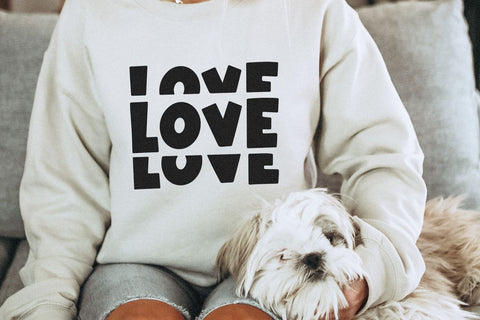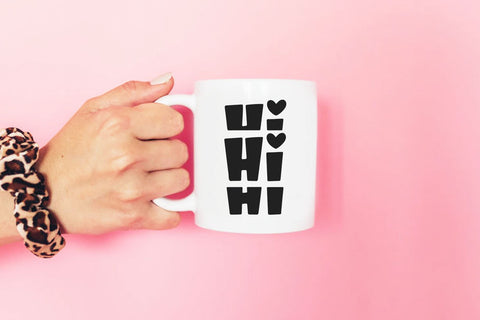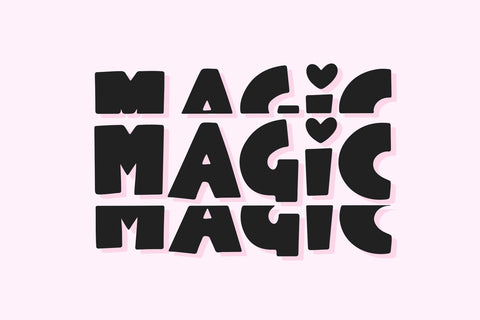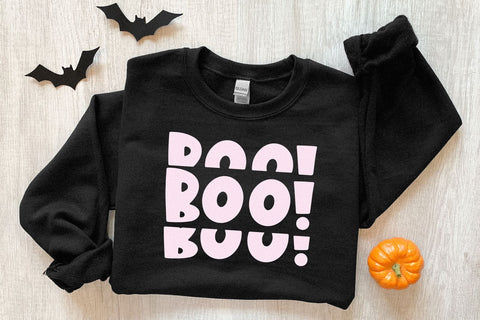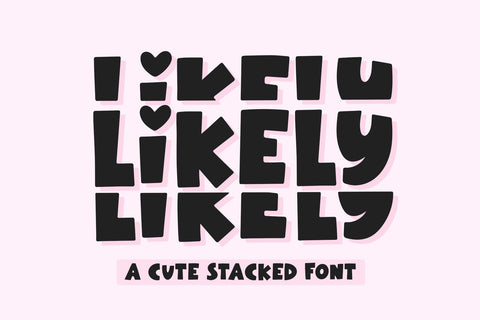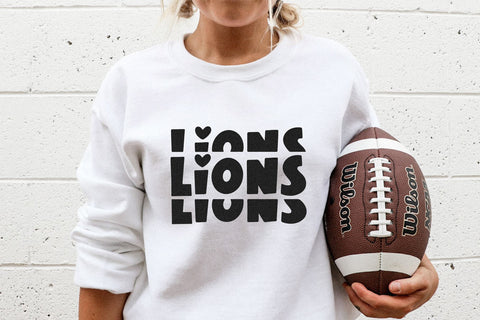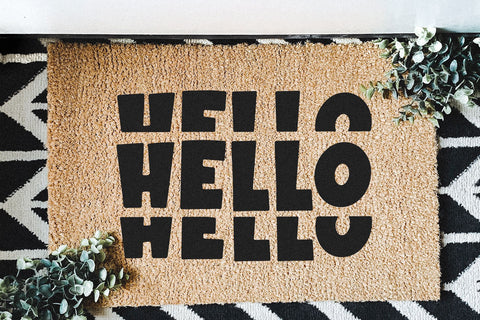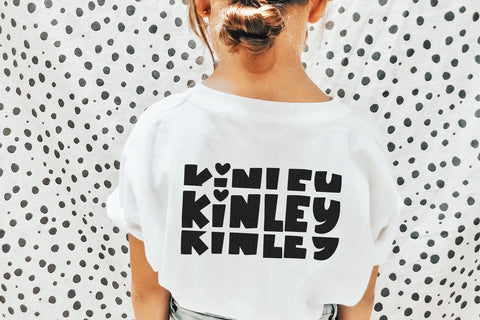
Likely Stacked - Fun Stacked Font
Likely Stacked is a fun stacked font perfect for all of your cute designs!
The work is already done for you, just simply type out any word/phrase and it will already be in a fun stacked look!
This stacked design was created from my original font - Thinker
This font is perfect for creating shirts, stickers, procreate designs, instagram quotes and more!